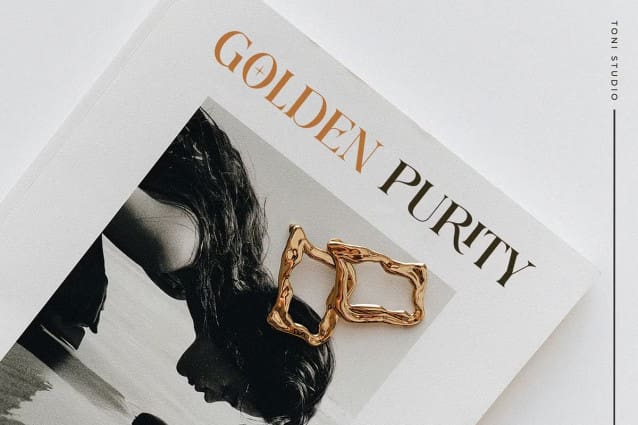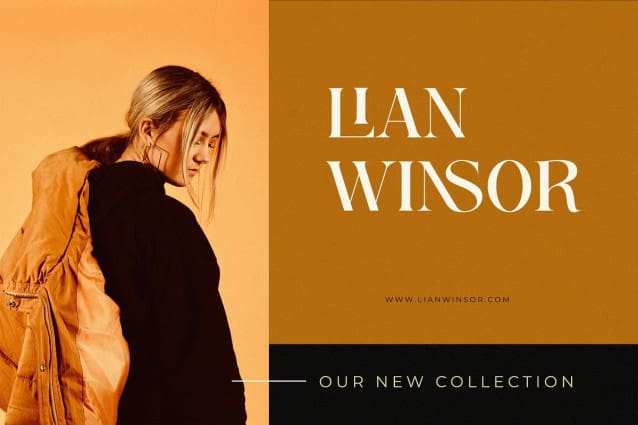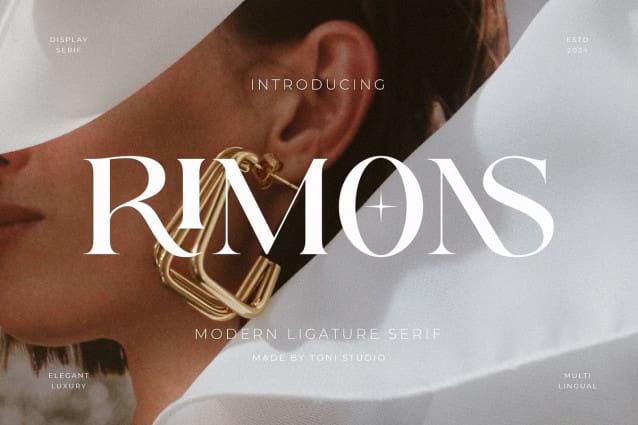
Rimons Font
Rimons Font is a serif display font designed with luxury and elegance, combining artistic ligature elements to produce unique and distinctive visuals. Each character is designed with precision, giving a classic yet modern impression. The bold serif style and gentle curves of the letters create a charming aesthetic, suitable for a variety of luxury branding needs, from logos, packaging, to high-quality editorial.
With the addition of subtle and elegant ligatures, this font gives a new dimension to text, creating connections between letters that appear natural and beautiful. Rimons designs are suitable for those who are looking for an exclusive touch to their design work, whether in the digital or print world.